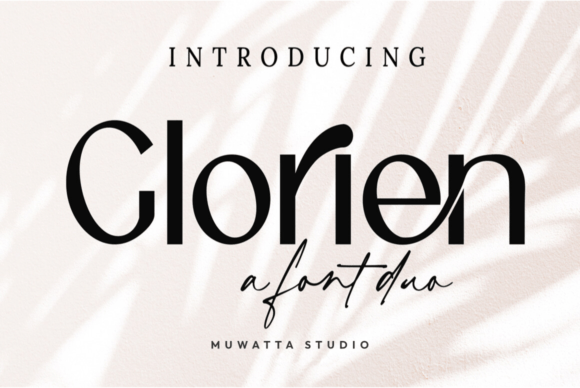
Glorien Duo Font: Elevate Your Designs with Elegance and Luxury
In the world of typography, fonts play a crucial role in conveying the tone and personality of a design. Among the numerous font options available, Glorien Duo Font stands out as a remarkable pair of sans and script fonts that exude elegance and luxury. This stunning duo is designed to complement each other, making it an excellent addition to any font library. In this article, we’ll explore the features and benefits of Glorien Duo Font and why it’s a must-have for designers and creatives.
What is Glorien Duo Font?
Glorien Duo Font is a pair of modern sans and script fonts that share a harmonious relationship. The sans font boasts clean lines, while the script font showcases flowing curves, creating a beautiful contrast that adds visual interest to any design. This font duo is crafted to cater to various design needs, making it suitable for a wide range of projects, from branding and advertising to packaging and digital media.
Elegant and Luxurious Look
One of the standout features of Glorien Duo Font is its elegant and luxurious appearance. The sans font has a sleek, modern feel, while the script font adds a touch of sophistication and refinement. The combination of these two fonts creates a visually appealing contrast that elevates the overall aesthetic of a design. Whether you’re working on a high-end brand identity or a creative project, Glorien Duo Font is sure to make a lasting impression.
PUA Encoding for Easy Access
Glorien Duo Font is PUA (Private Use Area) encoded, which means that all glyphs and swashes are easily accessible. This feature makes it simple for designers to use the font’s various elements, such as ligatures, ornaments, and flourishes, to add a personal touch to their designs. With PUA encoding, designers can focus on creativity rather than struggling with font technicalities.
Design Applications of Glorien Duo Font
Glorien Duo Font’s versatility makes it suitable for a wide range of design applications. Here are a few examples:
- Branding and Identity: Use Glorien Duo Font to create a luxurious brand identity that exudes sophistication and elegance.
- Advertising and Marketing: The font’s clear and elegant appearance makes it perfect for advertising and marketing materials, such as brochures, flyers, and posters.
- Packaging Design: Add a touch of luxury to your packaging designs with Glorien Duo Font, making your products stand out on store shelves.
- Digital Media: Use the font to create engaging digital content, such as social media graphics, blog posts, and website headers.
Benefits of Using Glorien Duo Font
By incorporating Glorien Duo Font into your design workflow, you’ll enjoy several benefits:
- Enhanced Creativity: The font’s elegant and luxurious appearance will inspire your creativity, allowing you to produce stunning designs.
- Consistency: The sans and script fonts are designed to work together seamlessly, ensuring consistency across your designs.
- Time-Saving: With PUA encoding, you can quickly access all glyphs and swashes, saving you time and effort.
- Professionalism: Glorien Duo Font’s high-end appearance will elevate your designs, making them look professional and polished.
Tips and Tricks for Using Glorien Duo Font
To get the most out of Glorien Duo Font, here are some tips and tricks:
- Mix and Match: Experiment with different combinations of the sans and script fonts to create visually appealing contrasts.
- Play with Swashes: Use the font’s swashes and glyphs to add a personal touch to your designs.
- Adjust Font Sizes: Experiment with different font sizes to create visual hierarchy and emphasize important design elements.
Glorien Duo Font is a remarkable pair of sans and script fonts that can elevate your designs with elegance and luxury. With its PUA encoding, elegant appearance, and versatility, this font duo is a valuable addition to any font library. Whether you’re a designer, creative, or entrepreneur, Glorien Duo Font is sure to inspire your creativity and help you produce stunning designs.